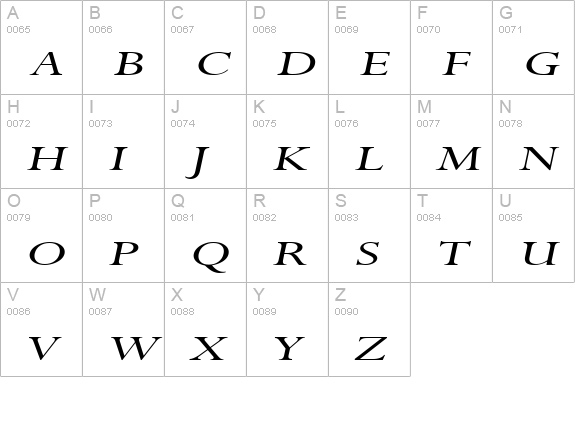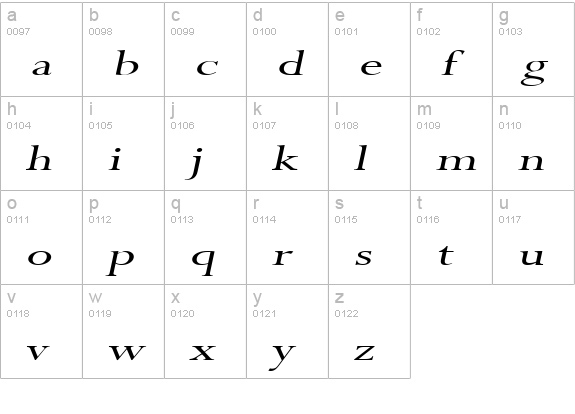
Rapid Extended Italic is a distinctive, extended-width, italic variant in the Rapid typeface family \xE2\x80\x94 well suited to design and typography projects.
Introducing Rapid Extended Italic, a strikingly elegant font that effortlessly combines speed and sophistication. With its sleek and slanted design, this typeface exudes a sense of dynamic energy, making it perfect for projects that require a touch of modernity and movement. Rapid Extended Italic's unique italicized shape adds a touch of style and flair to any text, while maintaining excellent legibility and readability. Whether you're designing eye-catching headlines, captivating logos, or stylish product packaging, this font is sure to leave a lasting impression. One of the most remarkable features of Rapid Extended Italic is that it is completely free to download. Yes, you heard it right! This exceptional font is freely available at FontsMarket.com, allowing designers, creatives, and enthusiasts alike to access its remarkable beauty without any cost. Downloading Rapid Extended Italic is a breeze. Simply visit FontsMarket.com and explore the vast library of fonts, where you'll find this gem waiting to be unleashed. Its versatility and captivating allure make it a must-have for any design project, whether it's for personal or commercial use. Expand your creative horizons with Rapid Extended Italic and witness how it effortlessly transforms your designs into masterpieces. Its sleek curves, sharp angles, and perfect balance make it a true standout among other fonts. Don't miss out on the opportunity to elevate your designs with this stunning typeface. Download Rapid Extended Italic today and experience the freedom of artistic expression without any limitations. FontsMarket.com is your go-to destination for all your font needs, and with Rapid Extended Italic being just a click away, the possibilities are endless.